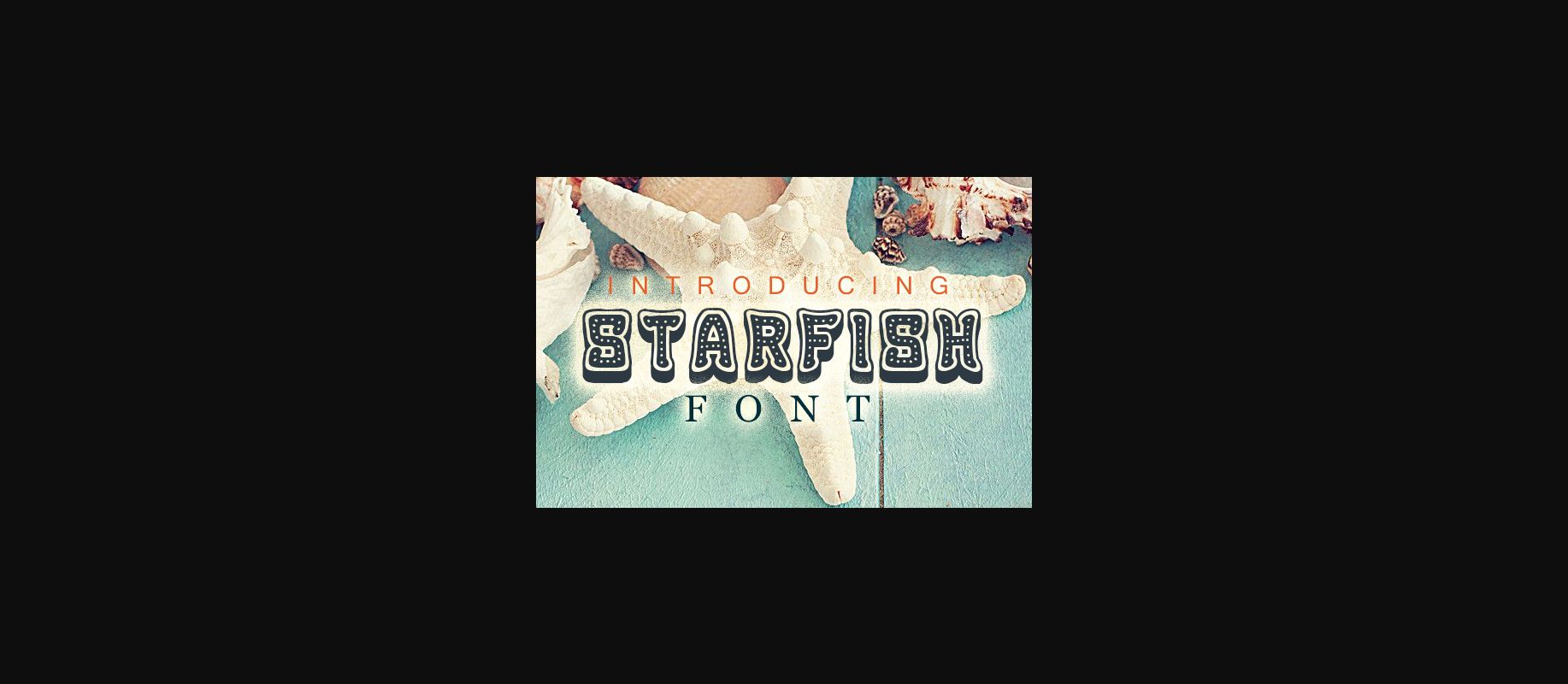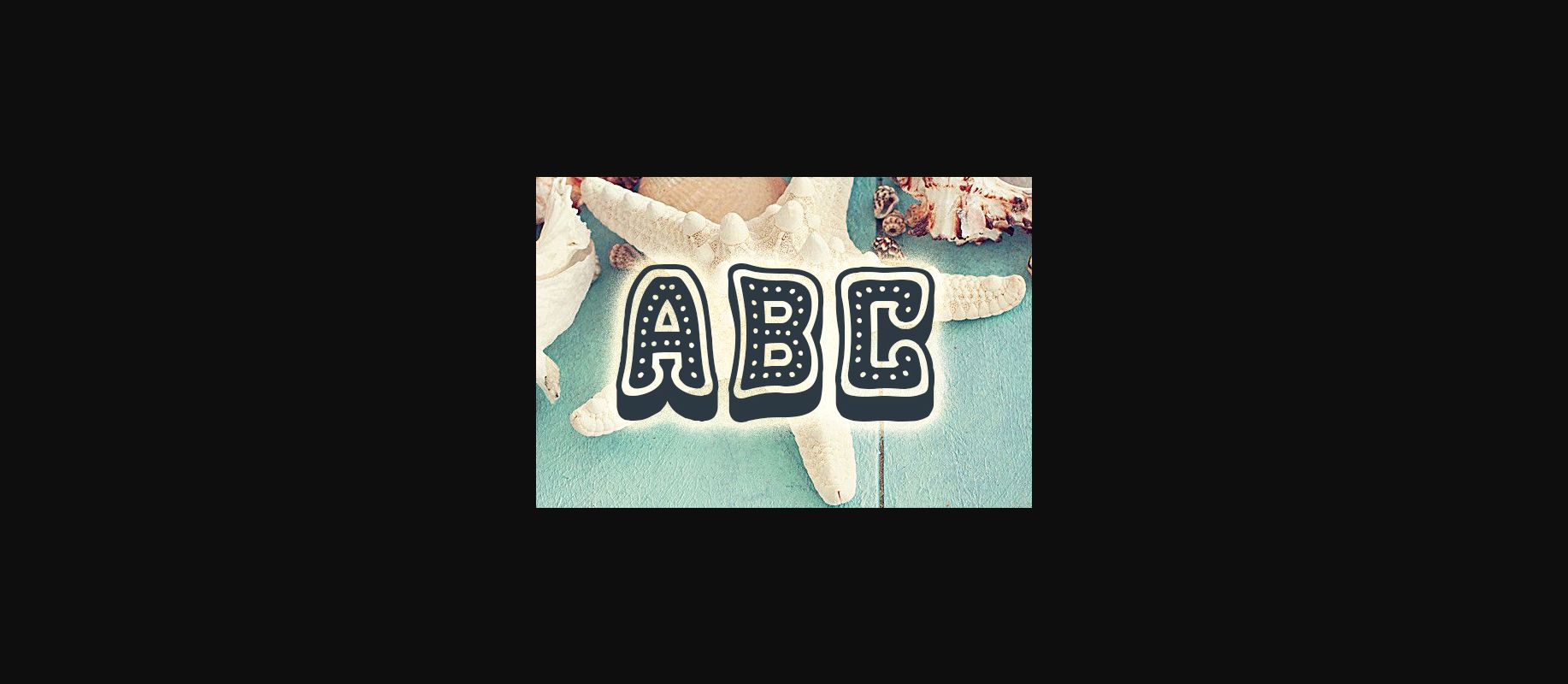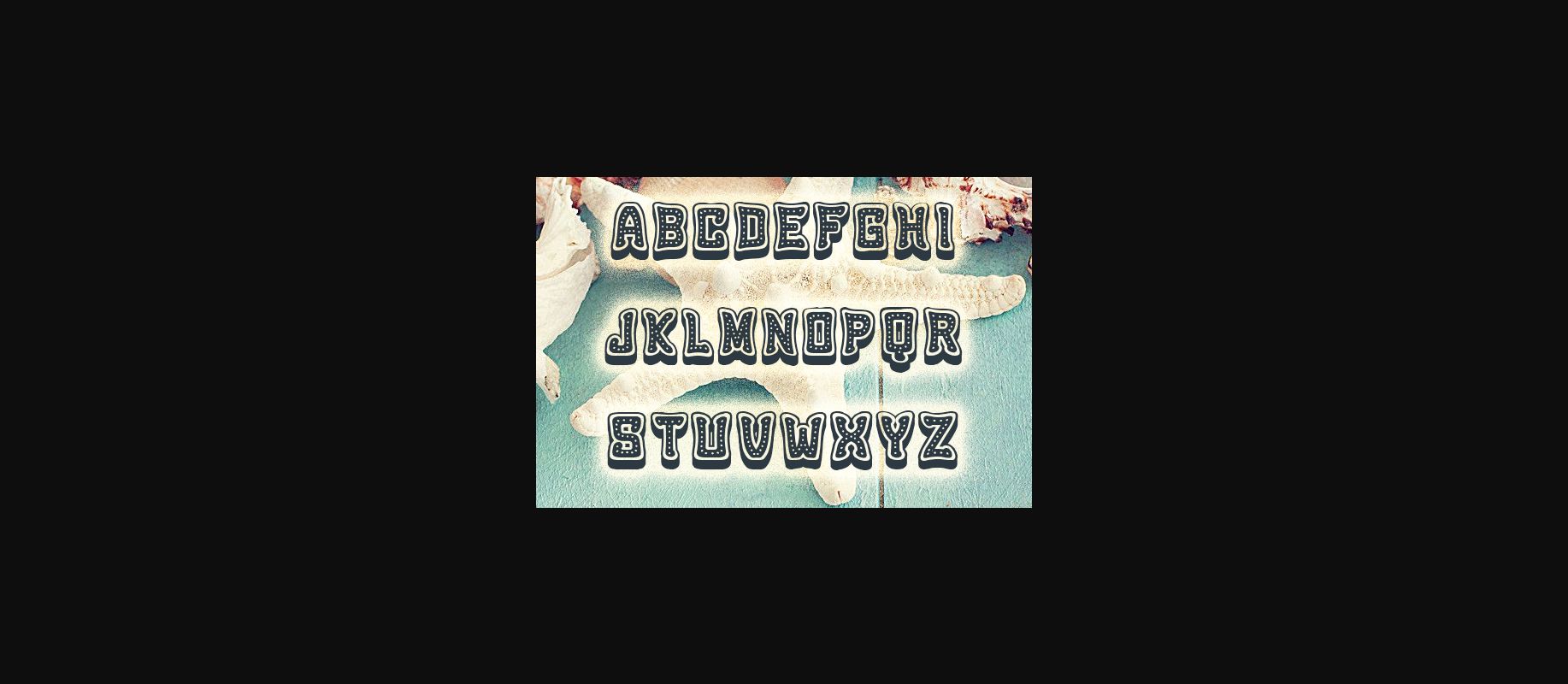
Starfish Font
About Starfish Font
Starfish is a fun and interesting decorative font. It will look superb on every banner, poster, or ad you wish to create.